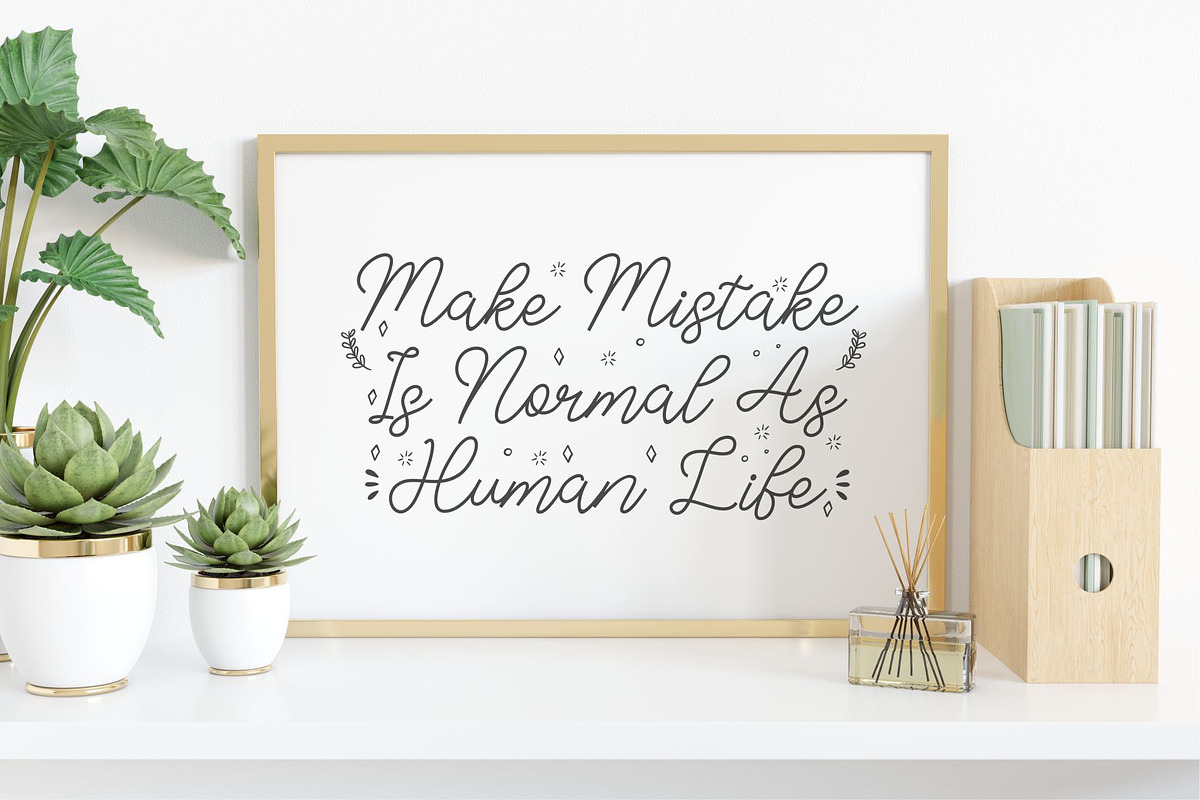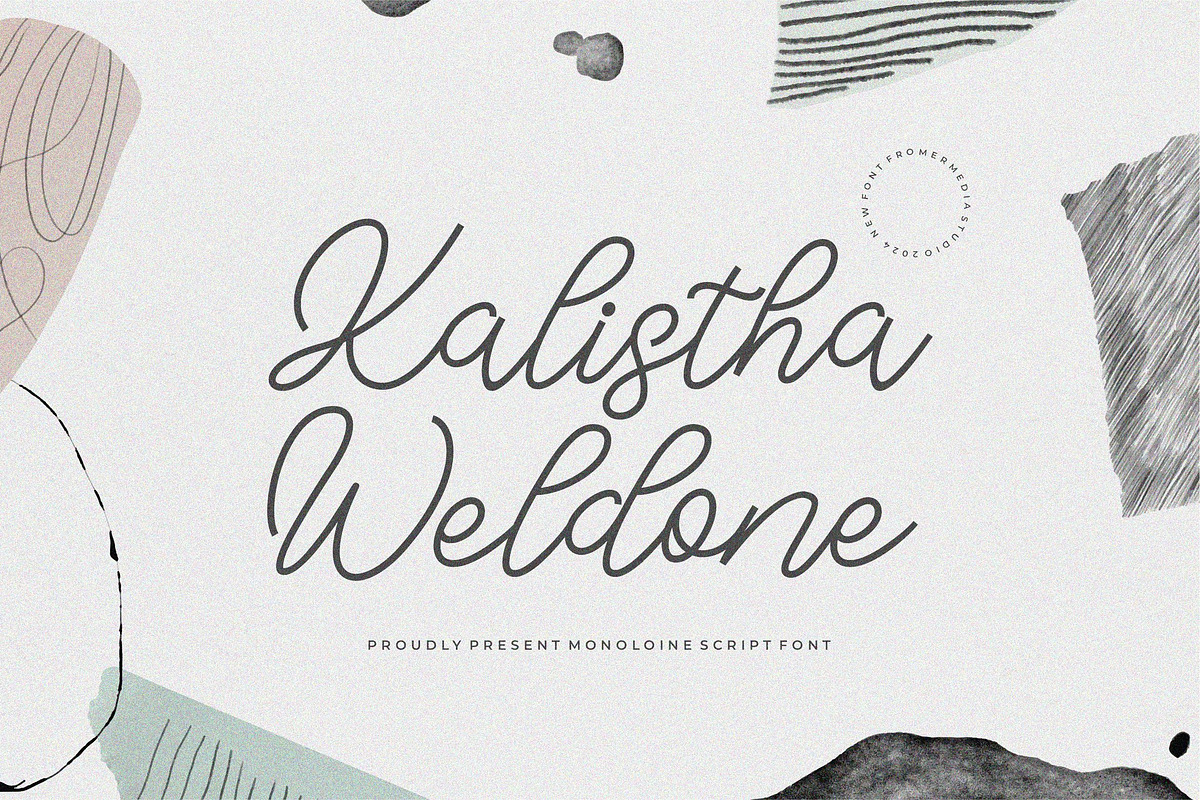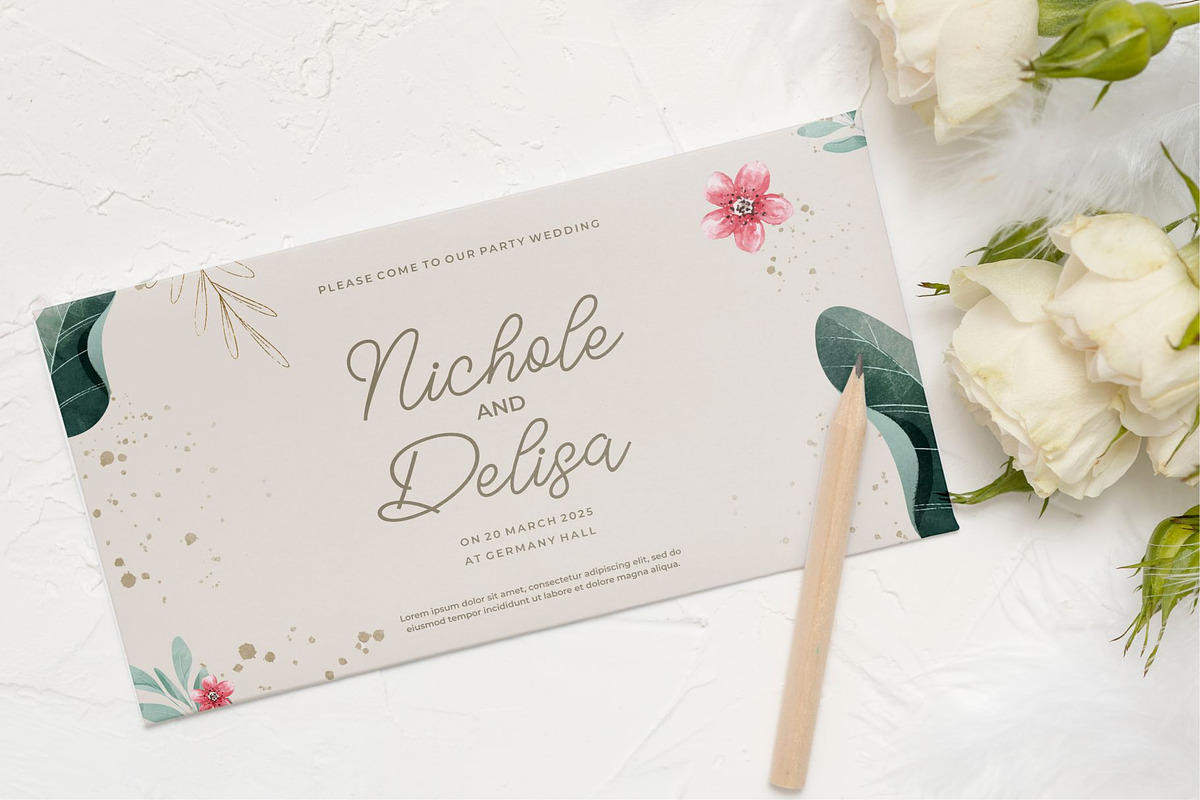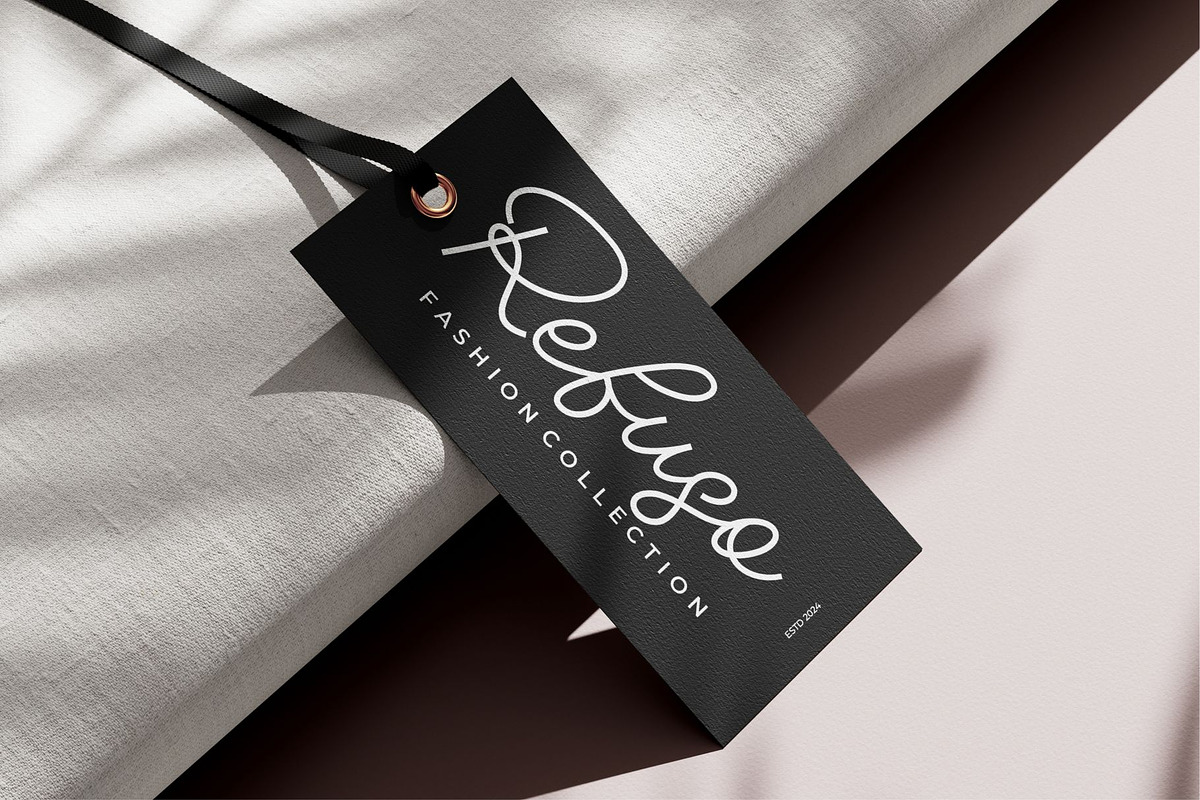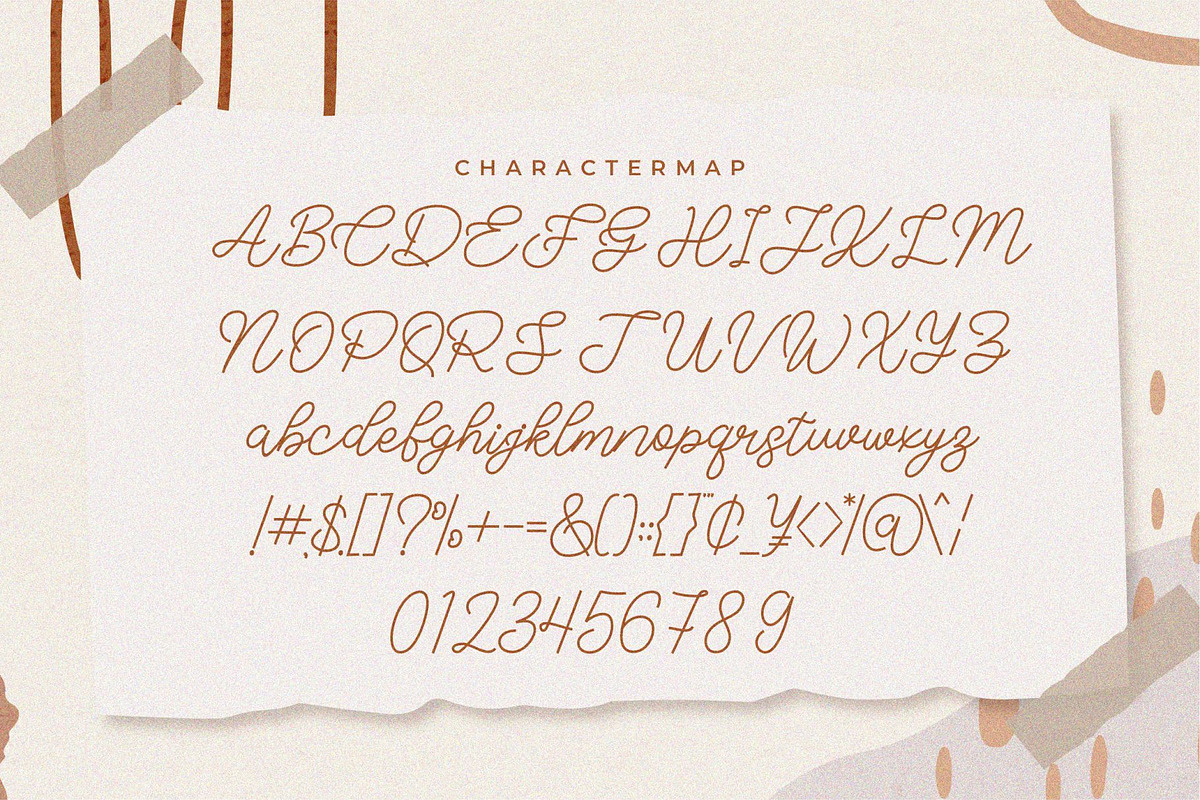
Kalistha Weldone || Monoline Script
Kalistha Weldone is a script font with unique and modern feels. It will be perfectly used for Branding, Logo Design, Lettering, Logotype, Clothing, Poster, magazine, packaging, posters, shopping bags, t-shirts, book covers, photography, special events and other design project.